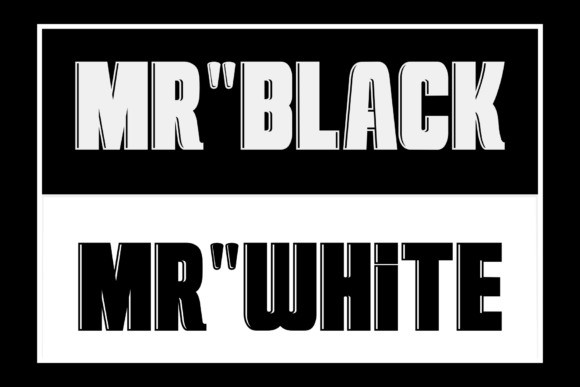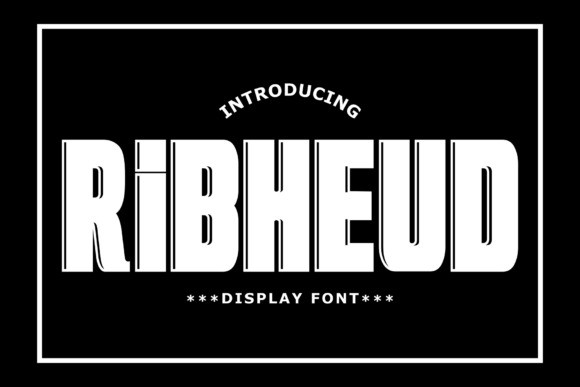
Crosswinds Font
Ribheud Display Font is a simple, bold and chunky lettered display font. Use it for each of your casual designs and notice how it makes them stand out!